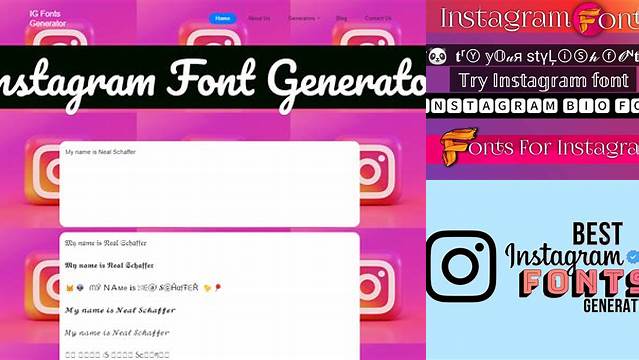
Cool Instagram Fonts: Generator & Copy-Paste Guide
Hey guys! Want to spice up your Instagram game? You know, make your profile and posts really stand out? Well, you've come to the right place! In this article, we're diving deep into the world of Instagram fonts, exploring everything from why they matter to how you can use them to become an IG styling pro. We'll be focusing on tools like the IGFonts Instagram fonts generator and how easy it is to copy and paste these cool fonts into your bio, captions, and comments. Let's get started!
Why Use Unique Instagram Fonts?
So, why should you even bother with different fonts on Instagram? It's a great question! Think of your Instagram profile as your digital storefront, your personal brand's headquarters on social media. The way it looks matters. In this digital age, grabbing someone's attention in the blink of an eye is crucial. That's where unique Instagram fonts come in. Using a different font is like adding a splash of color to a black-and-white photo – it instantly makes things more interesting. Think of the countless profiles a user scrolls through daily; a distinct font can be the very thing that makes your profile pause their thumb.
Branding and Recognition are the core of using unique fonts. Consistency is key in branding, and that includes your visual style. By incorporating a specific font that aligns with your overall brand aesthetic, you create a cohesive and recognizable identity. Imagine a user seeing your font across multiple posts and stories – they'll start associating that font with you. It's subtle, but super effective. Fonts can evoke feelings and emotions too. A playful, bubbly font can convey a fun and lighthearted vibe, while a sleek, modern font might suggest sophistication and professionalism. Matching your font to your message is a powerful way to enhance your content's impact. Think about it: a heartfelt quote looks more impactful in an elegant script font, while a bold announcement might demand a strong, sans-serif typeface.
Beyond aesthetics, unique fonts can also improve readability and accessibility. Breaking up the monotony of the standard Instagram font can make your captions and bio easier on the eyes, encouraging users to actually read what you've written. And let's not forget about accessibility! While Instagram doesn't natively offer a wide range of font options, using a generator allows you to choose fonts that are visually distinct and easier to read for people with visual impairments. It's about making your content accessible and enjoyable for everyone. So, using unique Instagram fonts isn't just about looking cool; it's about branding, communication, and accessibility. It's about making your mark on the platform and connecting with your audience on a deeper level. And the best part? It's super easy to do with tools like the IGFonts Instagram fonts generator!
How to Use an Instagram Fonts Generator (Like IGFonts.io)
Okay, so you're sold on the idea of using cool fonts, but how do you actually do it? That's where an Instagram fonts generator, like the awesome IGFonts.io, comes into play. These tools are super user-friendly and require absolutely no design skills. Trust me, if you can copy and paste, you've got this! The process is generally the same across most generators, but let's break it down step-by-step using IGFonts as our example so you become a fonts pro.
First, head over to IGFonts.io (or your preferred generator). The website's interface is clean and intuitive, making it a breeze to navigate. You'll see a big text box where you can type your desired text. This is where the magic begins! Next, type the text you want to transform. This could be your bio, a caption for your latest post, or even a comment you're about to leave. Go ahead, unleash your creativity! As you type, the generator will automatically display your text in a variety of different fonts below the text box. This is where the fun really starts – scrolling through the options and seeing your words come to life in countless styles. You'll find everything from elegant scripts and bold sans-serifs to playful bubble fonts and edgy grunge styles. There's a font for every mood and message! Now, browse the fonts and choose your favorite(s). Take your time and experiment! Try different fonts and see how they look with your text. Consider the overall tone and message you're trying to convey. Does a particular font resonate with your brand or personality? Don't be afraid to mix and match, but remember to keep things consistent for a cohesive look.
Once you've found a font you love, simply click on it to select it. Most generators, including IGFonts, will automatically copy the stylized text to your clipboard. This makes the next step super easy! Finally, paste the font into Instagram. Head over to your Instagram profile, post, or comment section and paste the text where you want it to appear. Voila! Your text is now rocking a brand new font. See? I told you it was easy! IGFonts.io and other similar generators are game-changers for anyone wanting to add a personal touch to their Instagram presence. They eliminate the need for complex design software or coding skills, making font customization accessible to everyone. So, go ahead and give it a try! Experiment with different fonts, find your signature style, and watch your Instagram engagement soar!
Copy and Paste: The Secret Weapon
The beauty of using an Instagram fonts generator lies in the simplicity of the copy and paste method. It's a true secret weapon for anyone who wants to elevate their Instagram game without getting bogged down in technical complexities. Forget about downloading fonts, installing software, or wrestling with complicated settings. With a font generator, all it takes is a few clicks and you're ready to roll. The copy and paste functionality is the bridge that connects the creative world of font design with the user-friendly interface of Instagram. It's what makes the entire process so seamless and accessible. Imagine trying to use custom fonts on Instagram without this feature – it would be a total headache!
Let's talk about the practicality of copy and paste. You've crafted the perfect bio, a witty caption, or a thoughtful comment. You've chosen the ideal font to match your message. Now, with a simple copy and paste, you can instantly transfer your stylized text to Instagram. No manual typing, no room for error – just pure, unadulterated font magic. This not only saves you time and effort but also ensures consistency across your profile. Imagine maintaining a consistent brand aesthetic across all your posts and bio, just by using the same font, copied and pasted effortlessly. The efficiency of copy and paste extends beyond just text. Many font generators also offer symbols, emojis, and other decorative elements that you can easily copy and paste into your Instagram content. This opens up a whole new world of creative possibilities! You can add visual flair to your captions, create eye-catching dividers in your bio, or simply inject some personality into your comments.
But the real power of copy and paste lies in its ability to empower users. It democratizes font customization, making it accessible to everyone, regardless of their technical skills or design experience. You don't need to be a graphic designer or a tech whiz to create stunning Instagram content. All you need is a font generator and the ability to copy and paste. This simple action unlocks a world of creative potential, allowing you to express your personality, build your brand, and connect with your audience in a unique and engaging way. So, the next time you're using an Instagram fonts generator, take a moment to appreciate the magic of copy and paste. It's the unsung hero of font customization, the secret weapon that makes it all possible. It's the bridge between creativity and practicality, empowering you to create a truly unique and captivating Instagram presence.
With tools like IGFonts.io, there's no excuse for sticking with the standard Instagram font. It's time to unleash your creativity and make your profile truly stand out. So, go ahead and give it a try! Copy and paste your way to a more engaging and visually appealing Instagram presence. Your followers will thank you for it! We've covered everything from the why to the how, so you're now equipped to become an Instagram font master. Get out there and make some font magic happen!